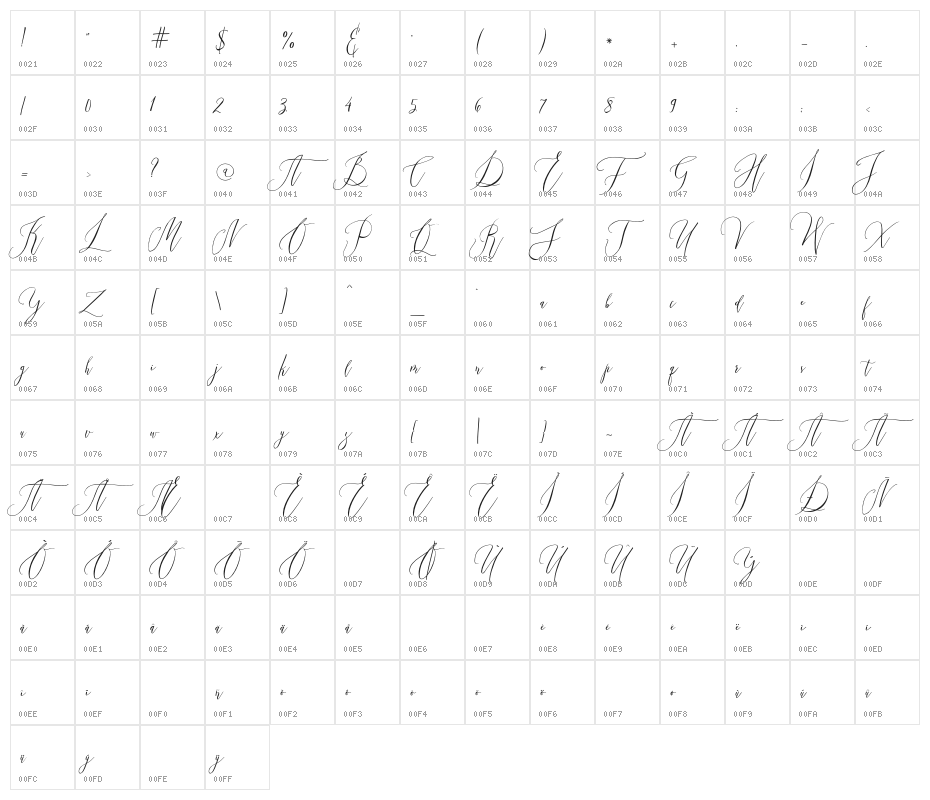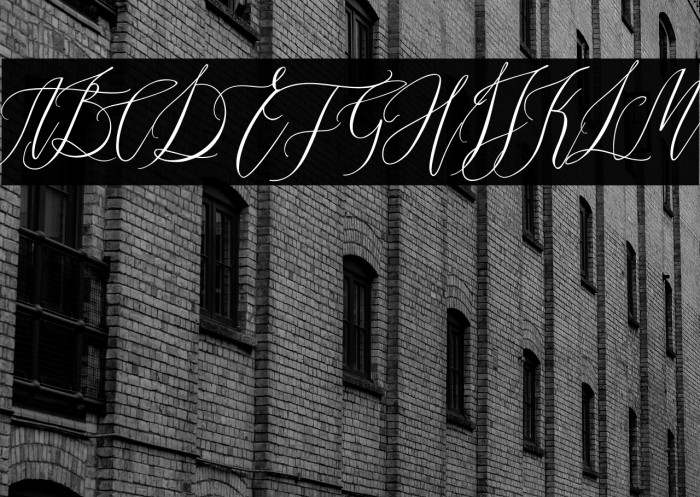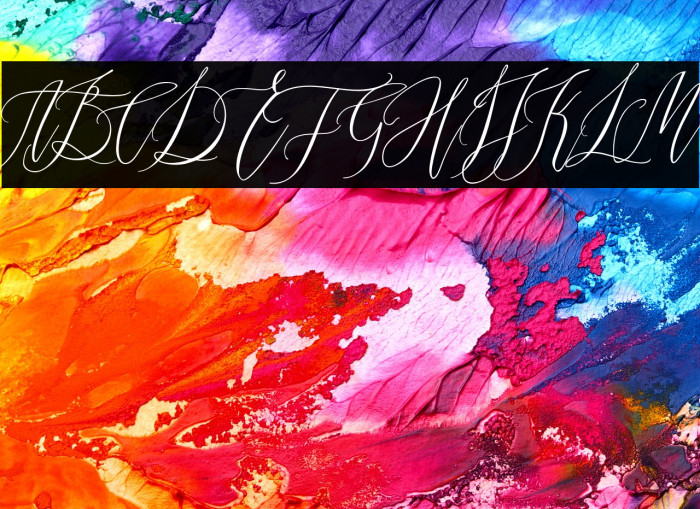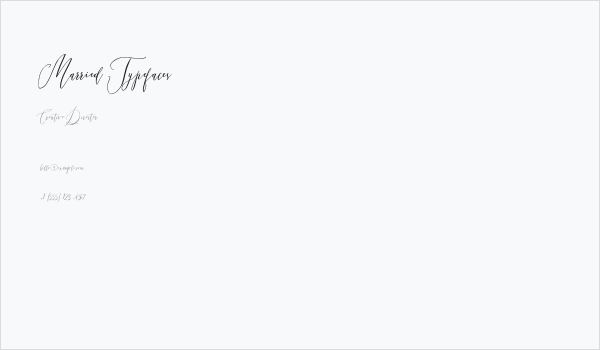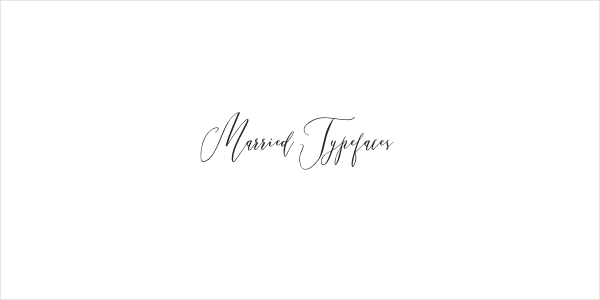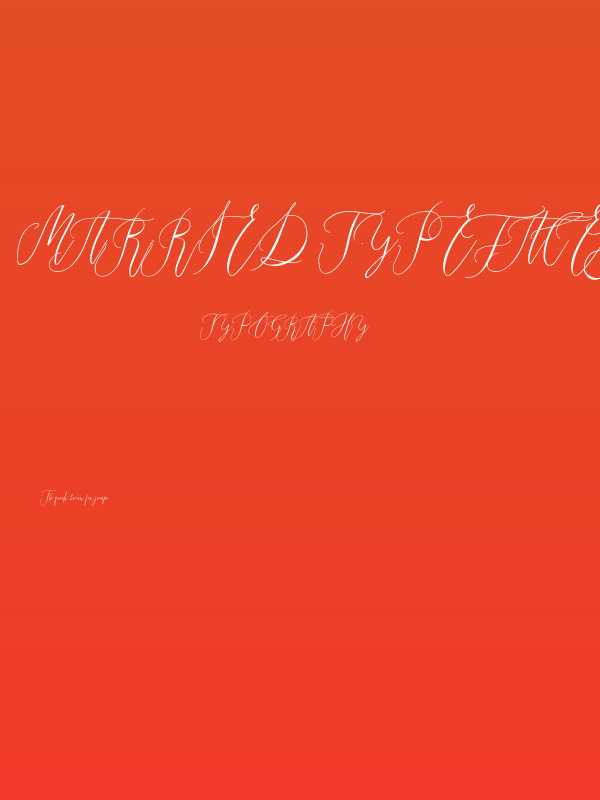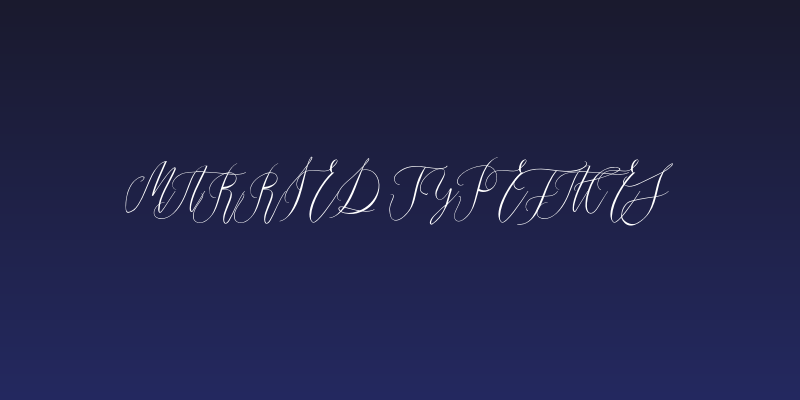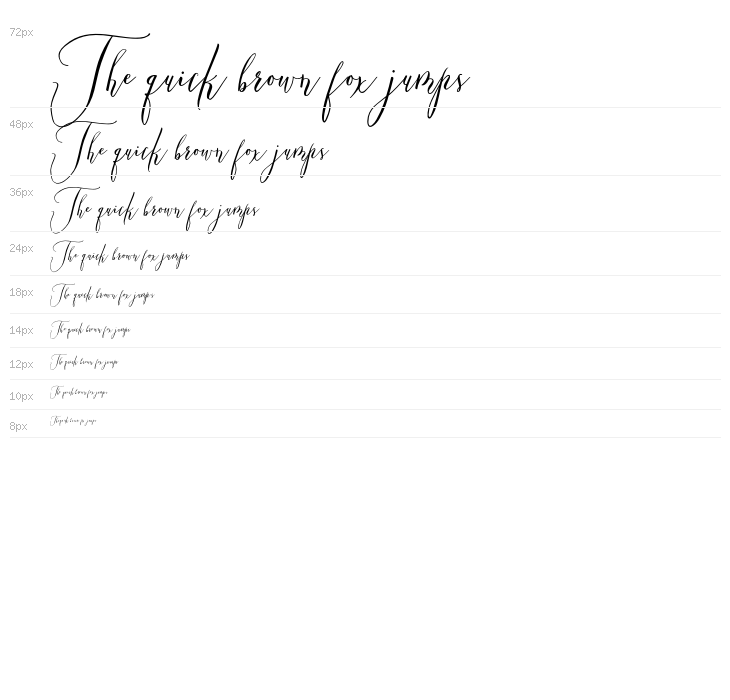
Married Typefaces Font
Married Typefaces Description
This elegant script font features a flowing, cursive style with intricate loops and flourishes, giving it a sophisticated and artistic appearance. The uppercase letters are particularly ornate, with sweeping ascenders and descenders that create a sense of movement and grace. The lowercase letters maintain a consistent style, complementing the uppercase with their own delicate curves. Numbers and special characters are designed to match the overall aesthetic, ensuring a cohesive look across all text. The font's thin strokes and high contrast between thick and thin lines add to its refined and delicate feel, making it ideal for formal and decorative uses.
Overall StyleElegant, Decorative
Use CaseHeadlines, Invitations, Decorative text
Proposed ProjectsIdeal for wedding invitations, elegant branding, greeting cards, and decorative headlines.